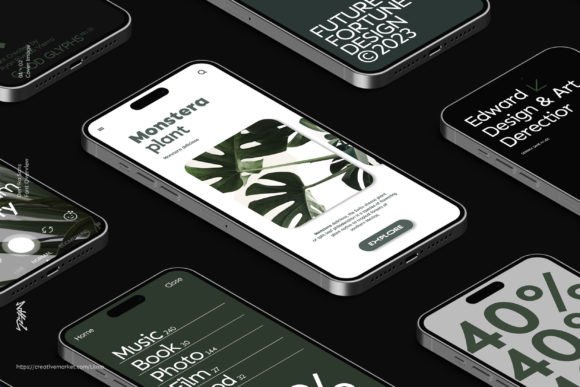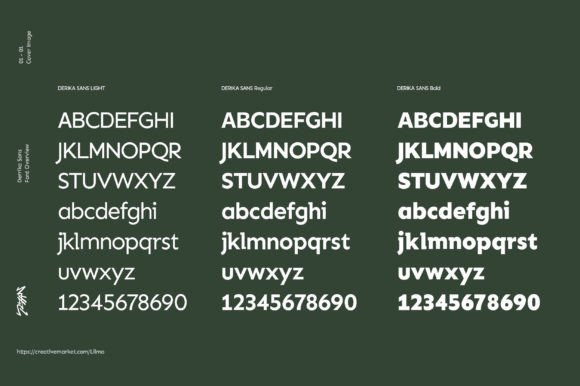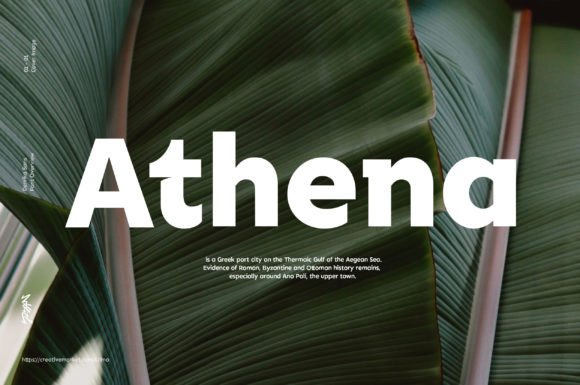
Introduction to Derika Sans Font
As a designer, have you ever found yourself stuck in a creative rut, searching for the perfect font to elevate your project? The struggle is real, but what if I told you that the solution is just a download away? Enter the Derika Sans Font, a bold and eye-catching typeface that’s sure to take your designs to the next level.
Created by Ryan Rivaldo Vierra, this high-quality font is a game-changer for any creative project. With its PUA encoding, you’ll have access to a world of amazing glyphs and ligatures that will add an extra layer of depth to your designs. Whether you’re working on a branding project, poster, or title, the Derika Sans Font is the perfect design resource to help you stand out from the crowd.
- High-quality design resource ideal for creative projects and professional use.
- Transparent background, making it suitable for any design application, from logos to digital art.
- Derika Sans Font is designed to be highly legible and versatile, suitable for body text and headings.
- Supports a wide range of languages, making it a great resource for international creative projects.
- Includes a comprehensive character set, including numerals, punctuation, and special characters.
I recently had the opportunity to work with the Derika Sans Font, and I must say it’s been a great addition to my design resources. One of the things that stands out is its high quality and versatility, making it perfect for a variety of creative projects.
- ✨ Clean and modern design aesthetic, perfect for contemporary branding and marketing materials.
- ✨ Supports a wide range of languages, making it an excellent choice for global design projects.
- ✨ Offers a transparent background, allowing for seamless integration into various design elements.
- ⚠️ Limited character set, which may not be ideal for projects that require a wide range of special characters.
- ⚠️ Not suitable for use in small font sizes, as the design may become pixelated.
Overall, I’m impressed with the Derika Sans Font and would definitely recommend it as a valuable resource for designers. Its high quality and versatility make it an excellent choice for a wide range of creative projects.
To get the most out of Derika Sans Font, use it on a transparent background to create a clean and modern look. Experiment with different font sizes and colors to add visual interest to your design.
Derika Sans Font is perfect for creative projects such as:
- Brand identity and logo design
- Infographics and data visualization
- Web design and user interface (UI) elements